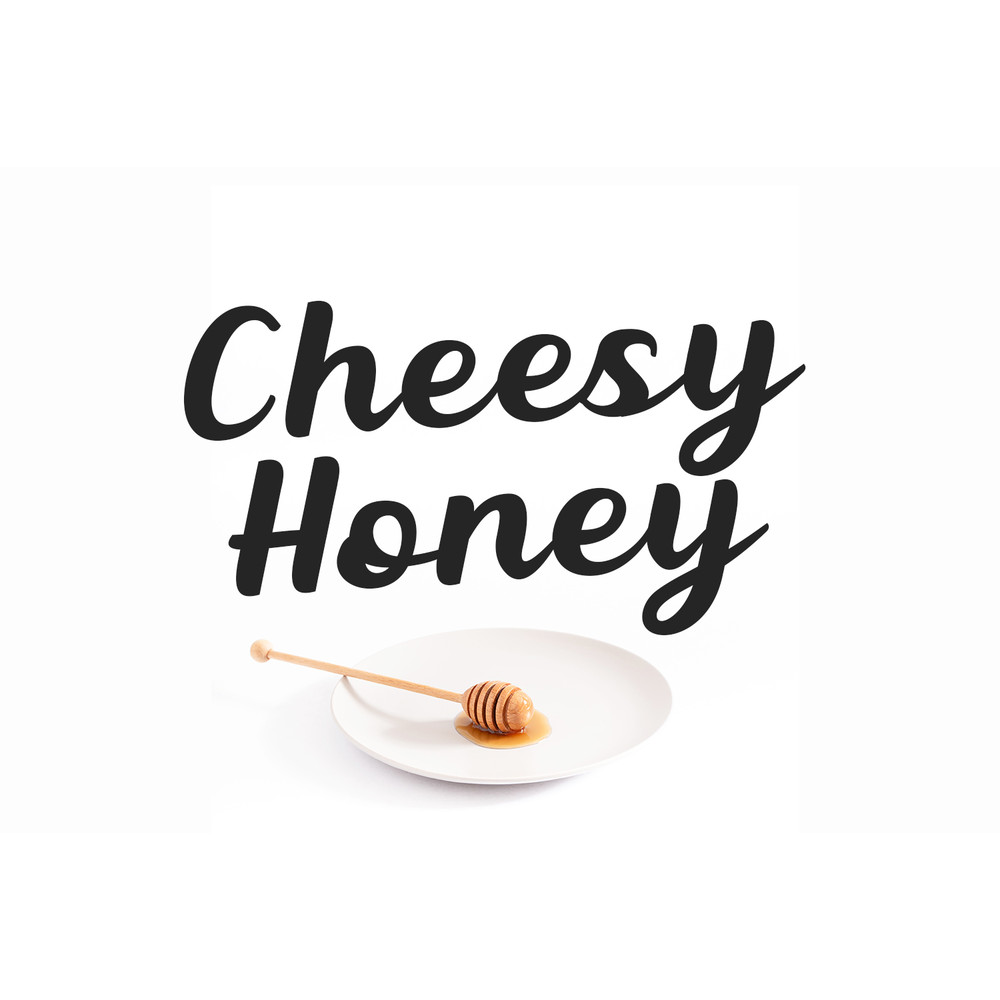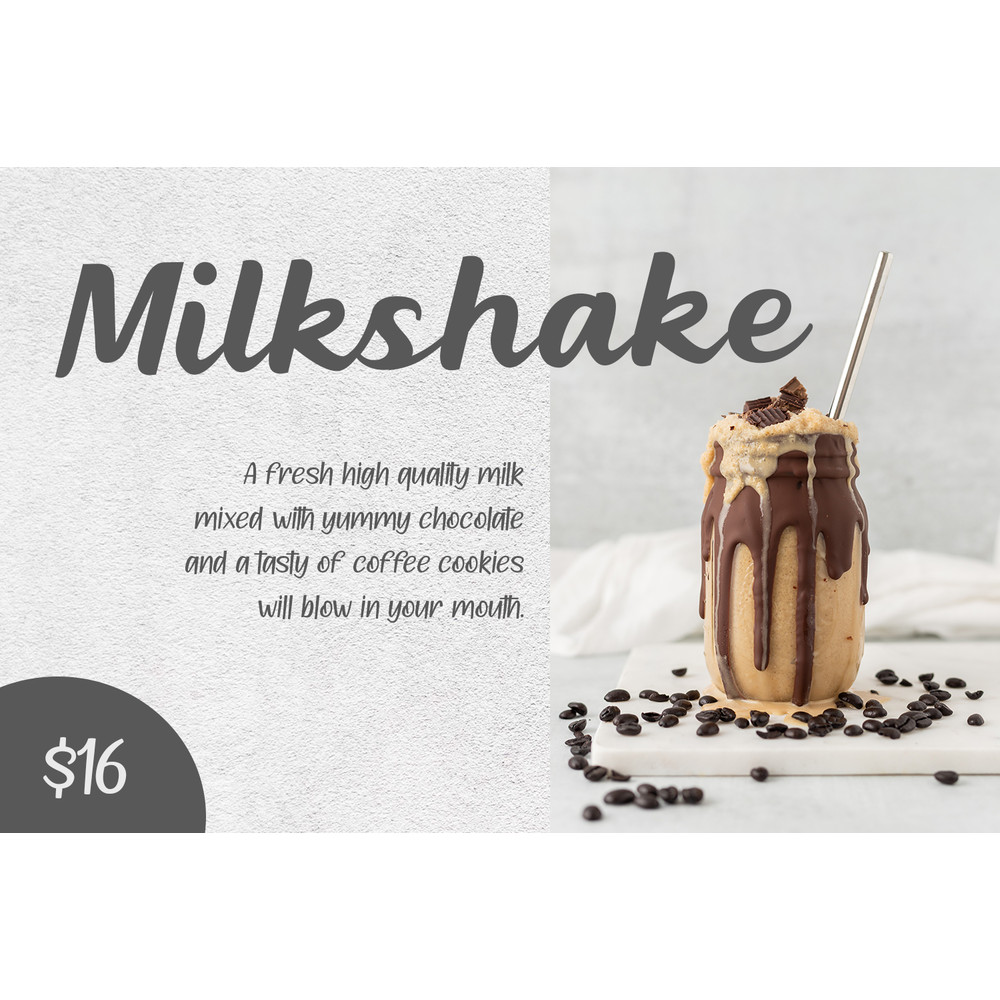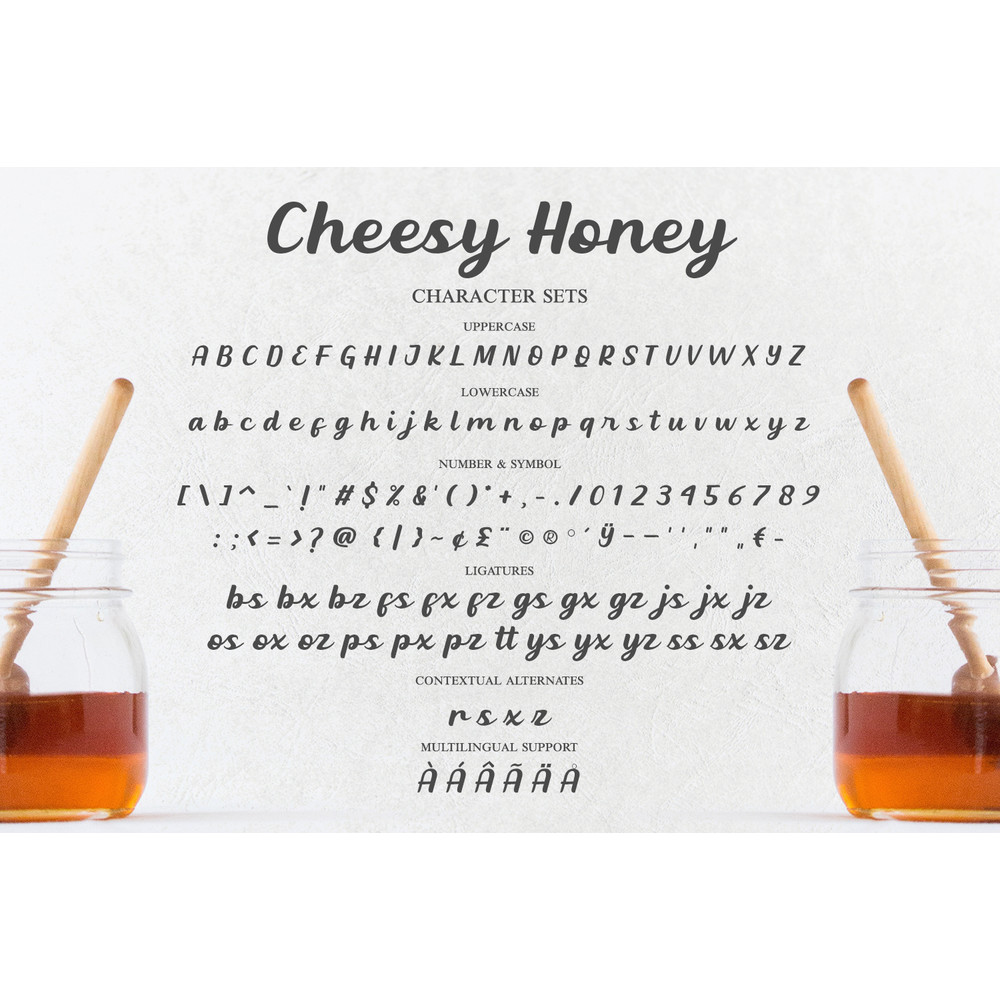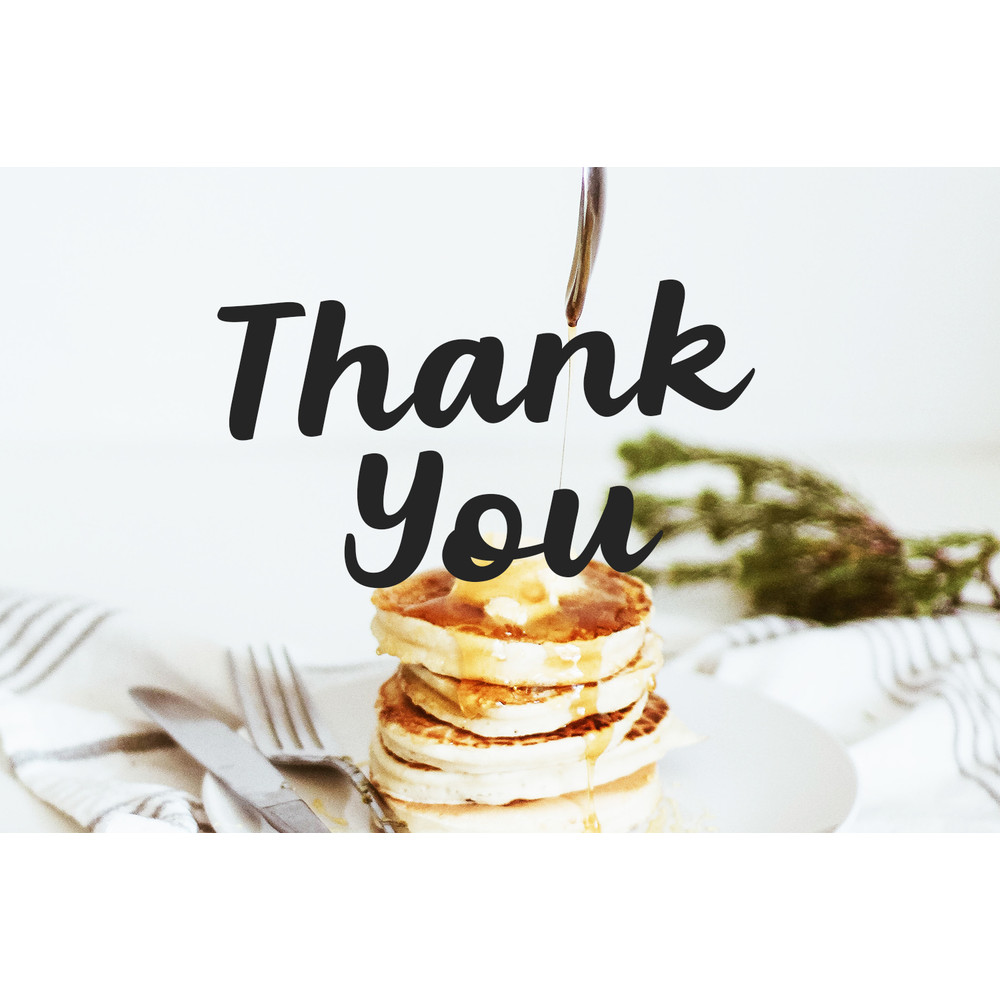
Cheesy Honey – Food Script Font Trending Fonts - Digital Font
Cheesy Honey is handcrafted script font that very recommended for food projects like menu list, product branding, and anything else. This font contains uppercase, lowercase, number, punctuations, ligature, contextual alternates, special characters for multi language, and also have been PUA Encoded.